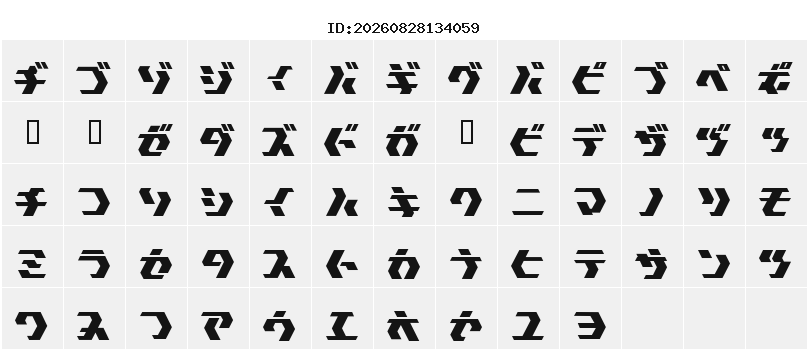
TokyoSquare Preview
• Font Name: TokyoSquare
• Full Font Name: TokyoSquare
About TokyoSquare.ttf
TokyoSquare.ttf is a modern, elegant sans-serif font designed for ultimate readability and visual harmony. Perfect for branding, headlines, web design, and print materials.